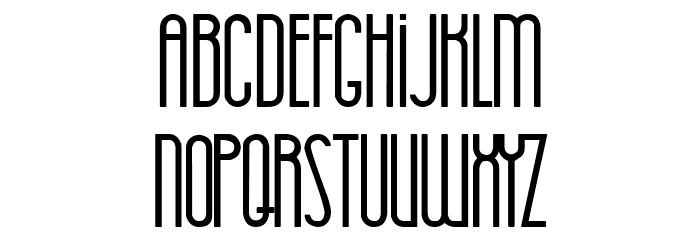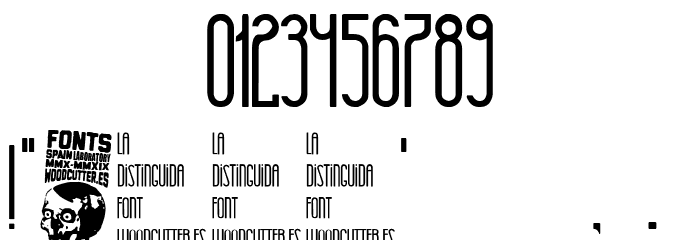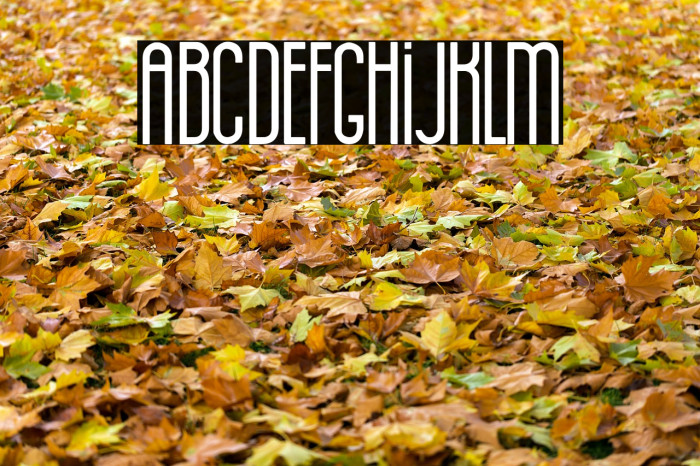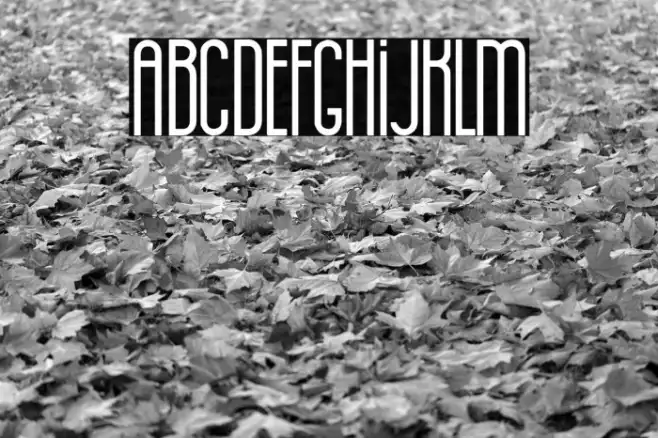
La Distinguida Font
This font features a tall, narrow design with clean, straight lines and a modern aesthetic. The characters are elongated, giving them a sleek and sophisticated appearance. The uppercase and lowercase letters maintain a consistent height, contributing to a uniform look. The numerals and special characters follow the same elongated style, ensuring cohesion across all elements. The overall design is minimalistic, making it suitable for contemporary projects that require a touch of elegance and distinction.
A tall, narrow font with a sleek, modern design.
- Proposed Projects: Ideal for branding, fashion magazines, luxury product packaging, and modern website headers.